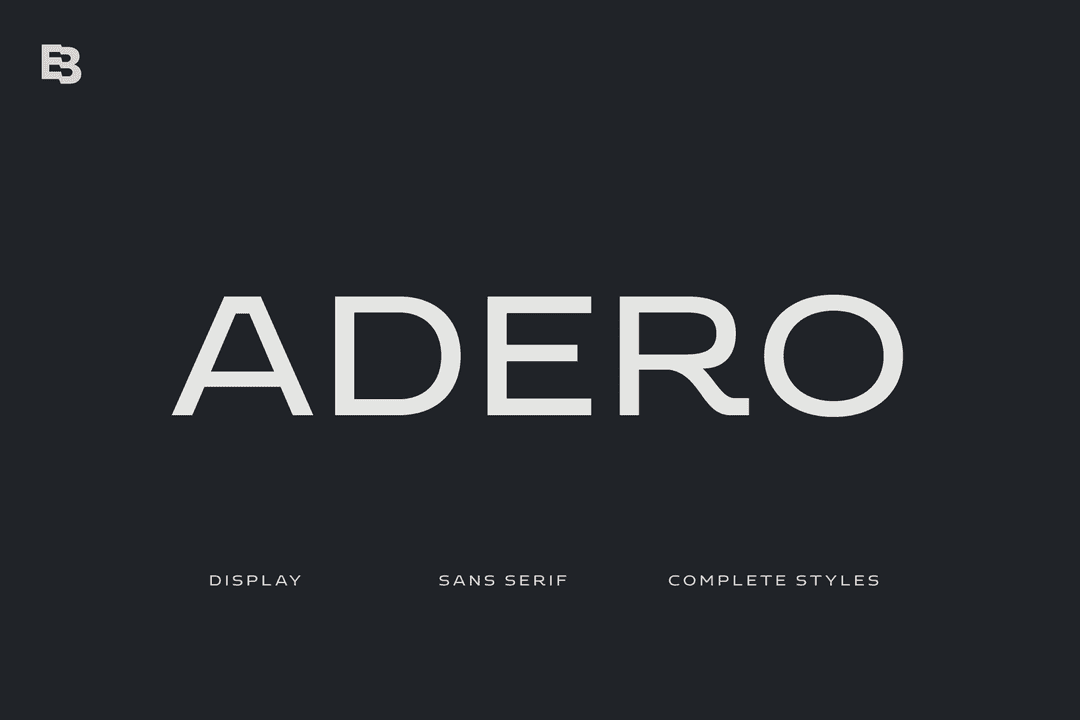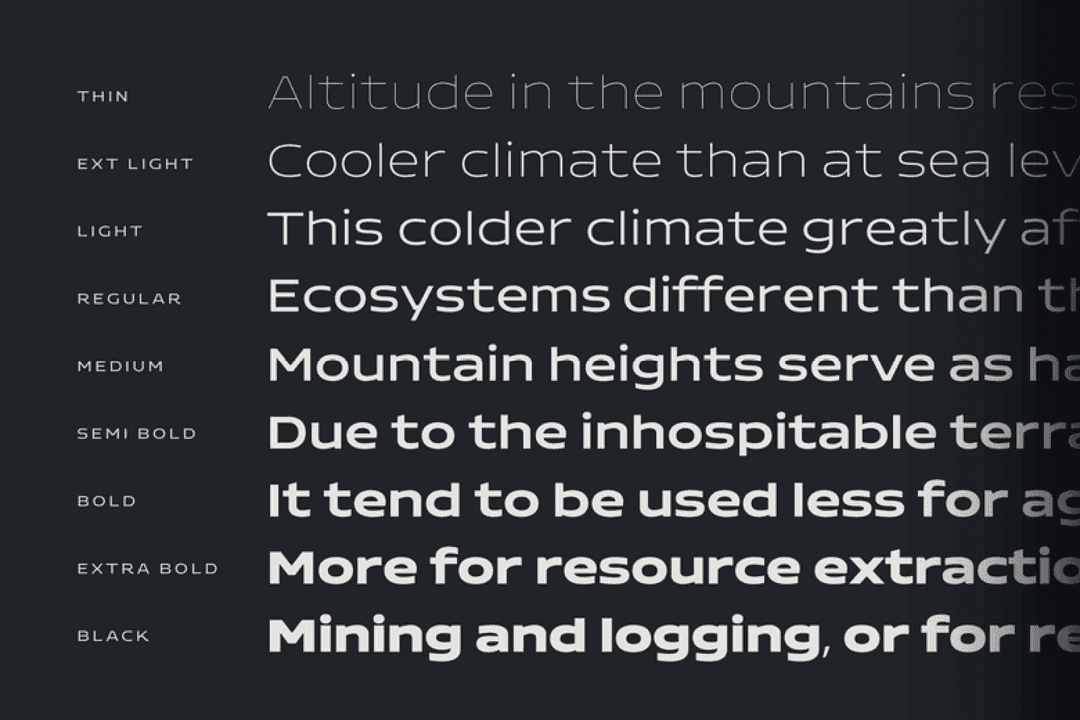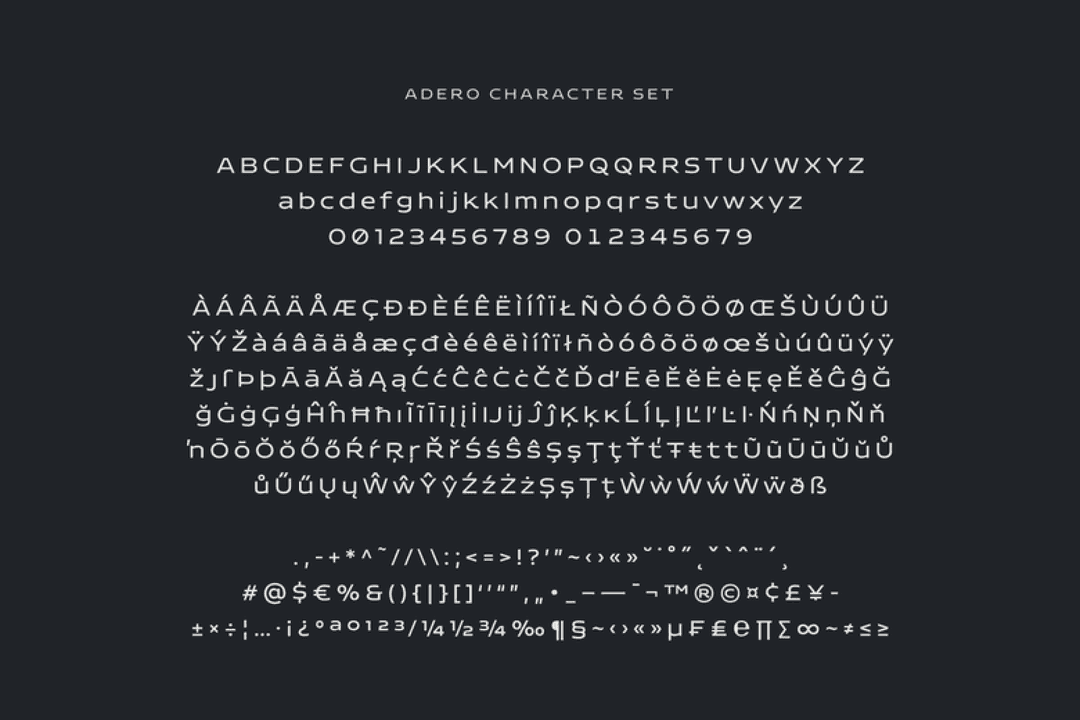
Adero is an eye-catching font family designed for modern and futuristic designs. Crafted with wide sizes, large x-heights and flexible letterforms. Perfect for sci-fi as well as general design use. Adero comes in 9 weights ranging from Thin through Black along with its accompanying Oblique.